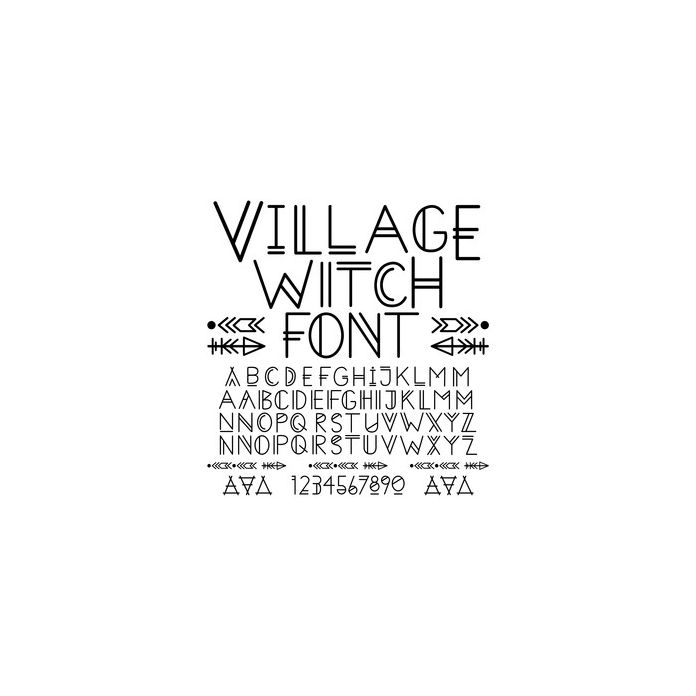
This witchy alphabet can be used for Halloween or any other project! This font includes Uppercase, lowercase, 0-9, and extra symbols *Kerning, letting, and baseline may need to be adjusted for desired effect.